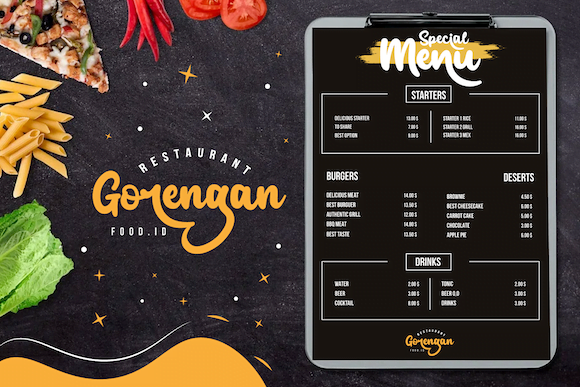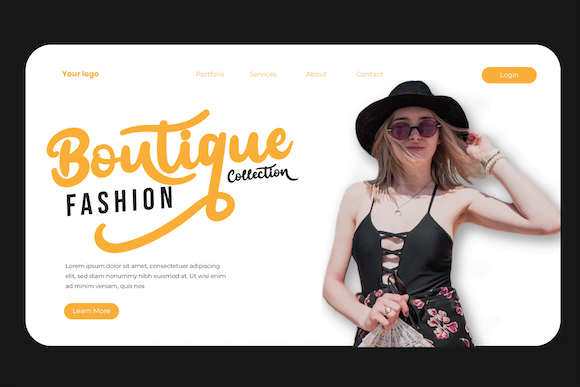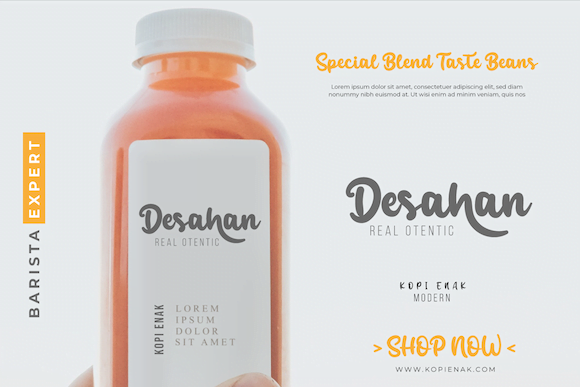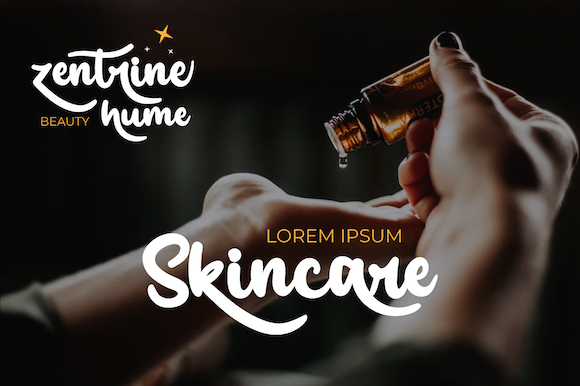
- Kentya – Script Handwritten Font
Kentya – Script Handwritten Font is the perfect blend of classic and modern styles. The font features smooth lines and graceful shapes, offering a professional yet artistic appearance.
Kentya is an excellent choice for projects needing an elegant touch, such as logo design, signature styling, and premium packaging. Each letter is carefully crafted to create a harmonious flow, making it easy to read while maintaining strong character. The design provides high flexibility, making it suitable for a variety of projects, from branding to invitations and sophisticated web design. Kentya is more than just a font; it’s a tool for expressing your creativity in an elegant and luxurious manner. If you aim to add a touch of timeless luxury to your designs, Kentya is the perfect choice.